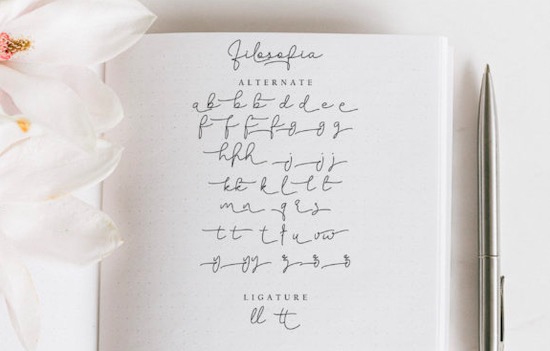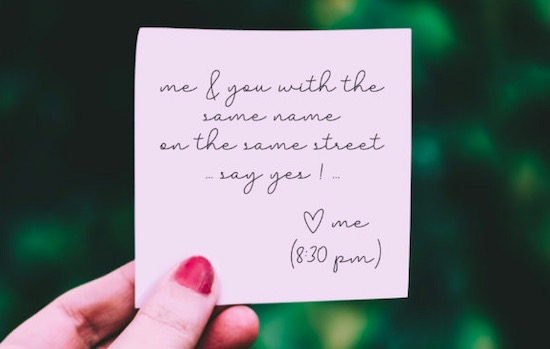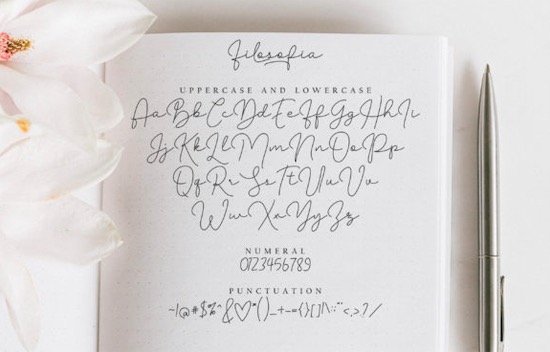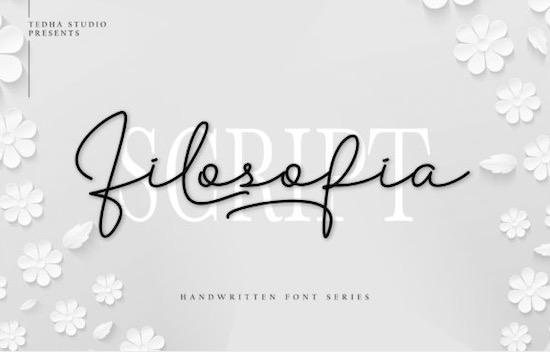
Filosofia Font will bring a new Handwritten style to your every design. This font is a modern and fresh script typeface that was created and published by Tedha Studio. And with its function, this handwritten monoline font will be perfect for wedding invitations, business cards, greeting cards, quotes, thank you cards, logos, and other design projects that need a light vibe.
Filosofia Handwritten Font